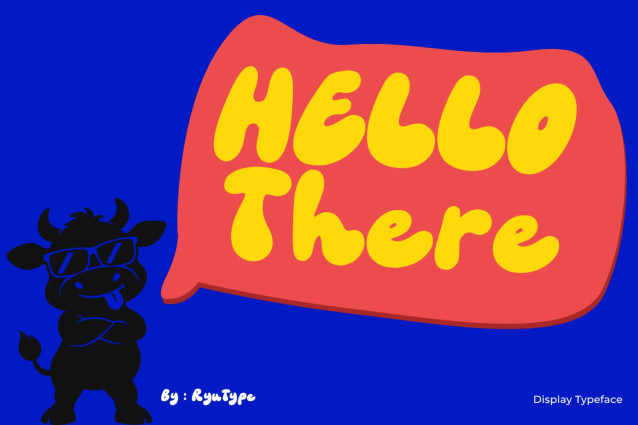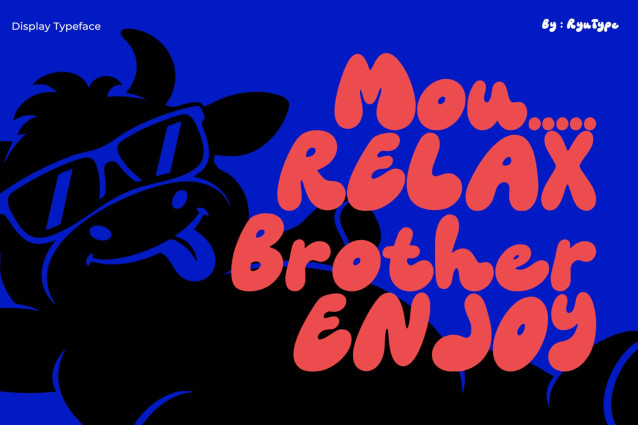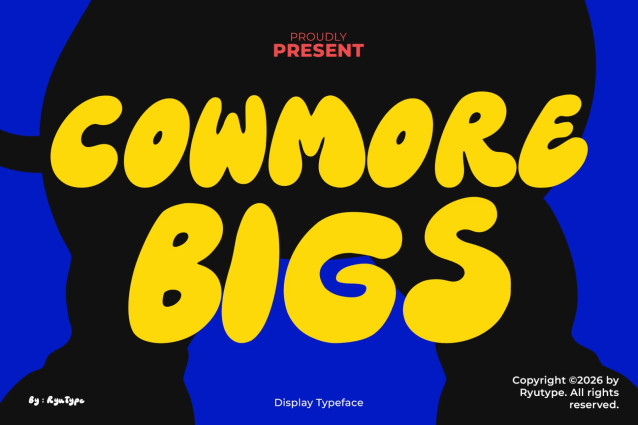
COWMORE BIGS is a bold and playful display type inspired by bubbly cartoon lettering and retro pop aesthetics. It features chunky rounded forms, soft organic curves, exaggerated proportions, and a fun, energetic personality that gives every letter a friendly character — perfect for logos, posters, packaging, food branding, stickers, apparel, children’s designs, and playful creative projects.
Cowmore Bigs Font